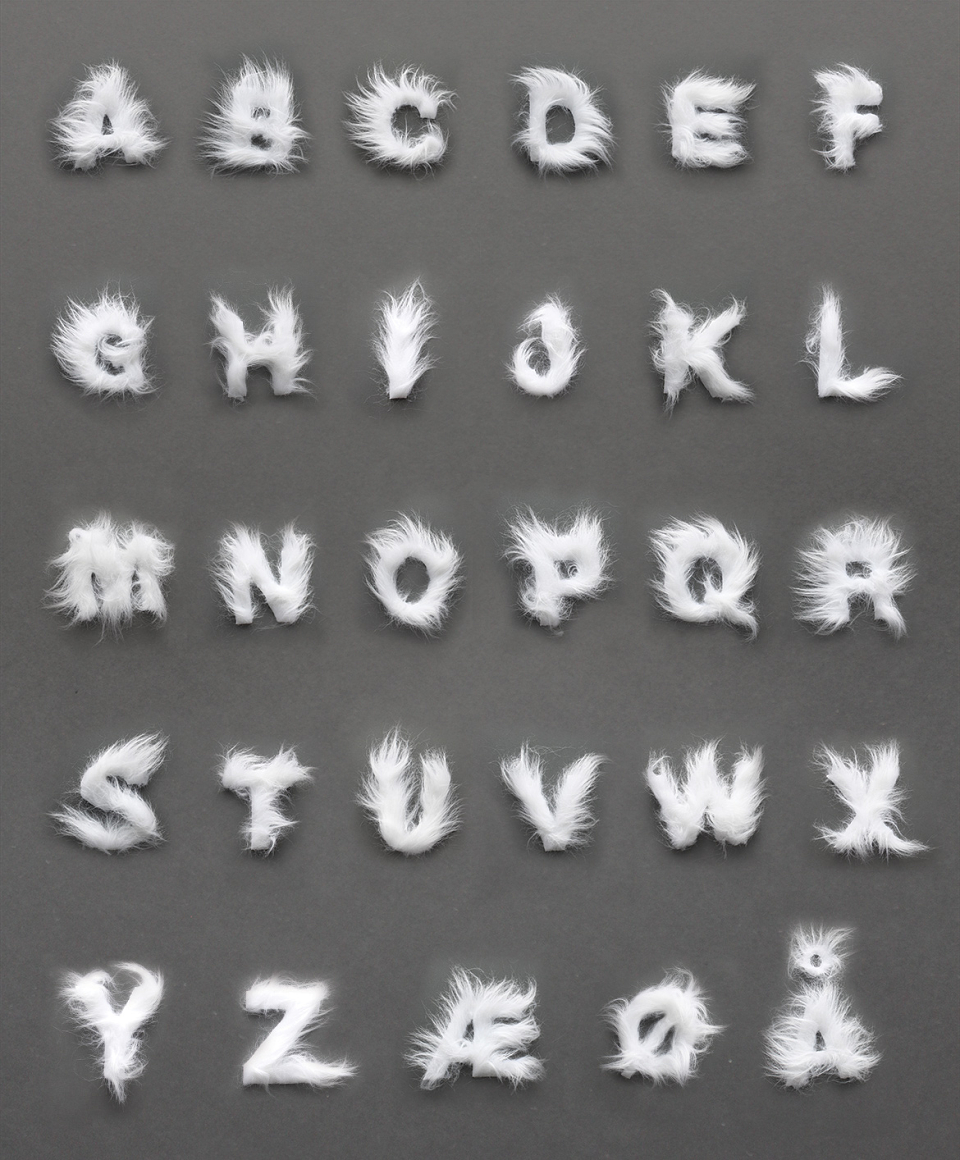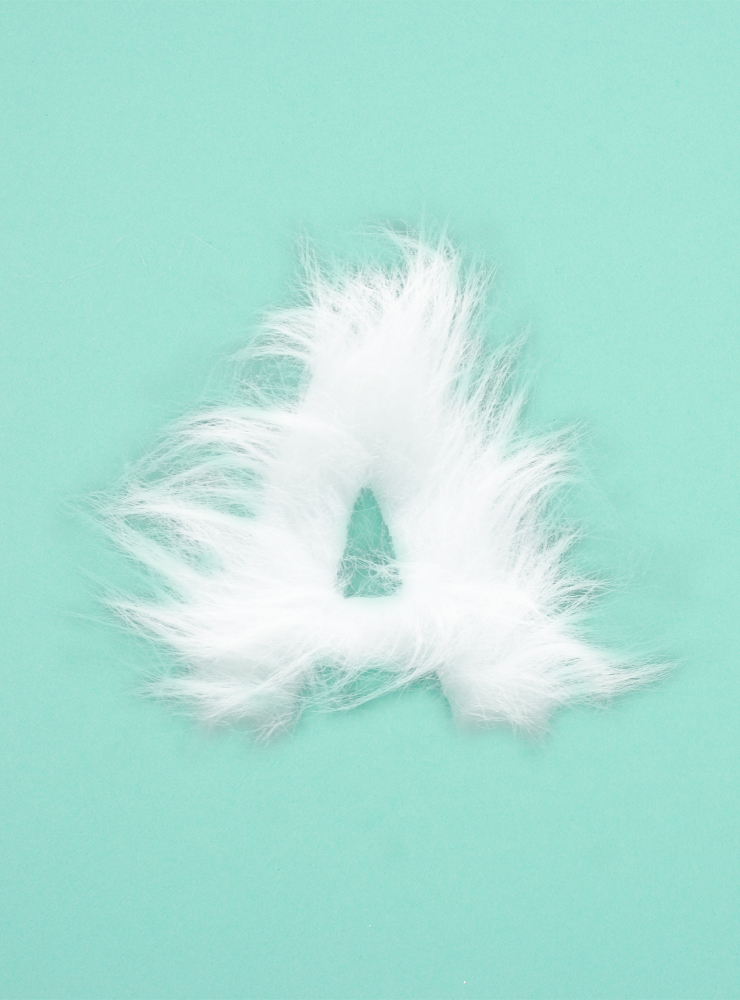
Furry Font is the attempt to turn a llama into typography. It's made entirely out of fake fluffy fur. The shape of the letters is originally based on Helvetica but the fluffyness of them gives them their own look. The inspiration for the typography was found a random tuesday. While walking around the Zoo, a fluffy llama caught our eyes and the rest is history.
Furry Font